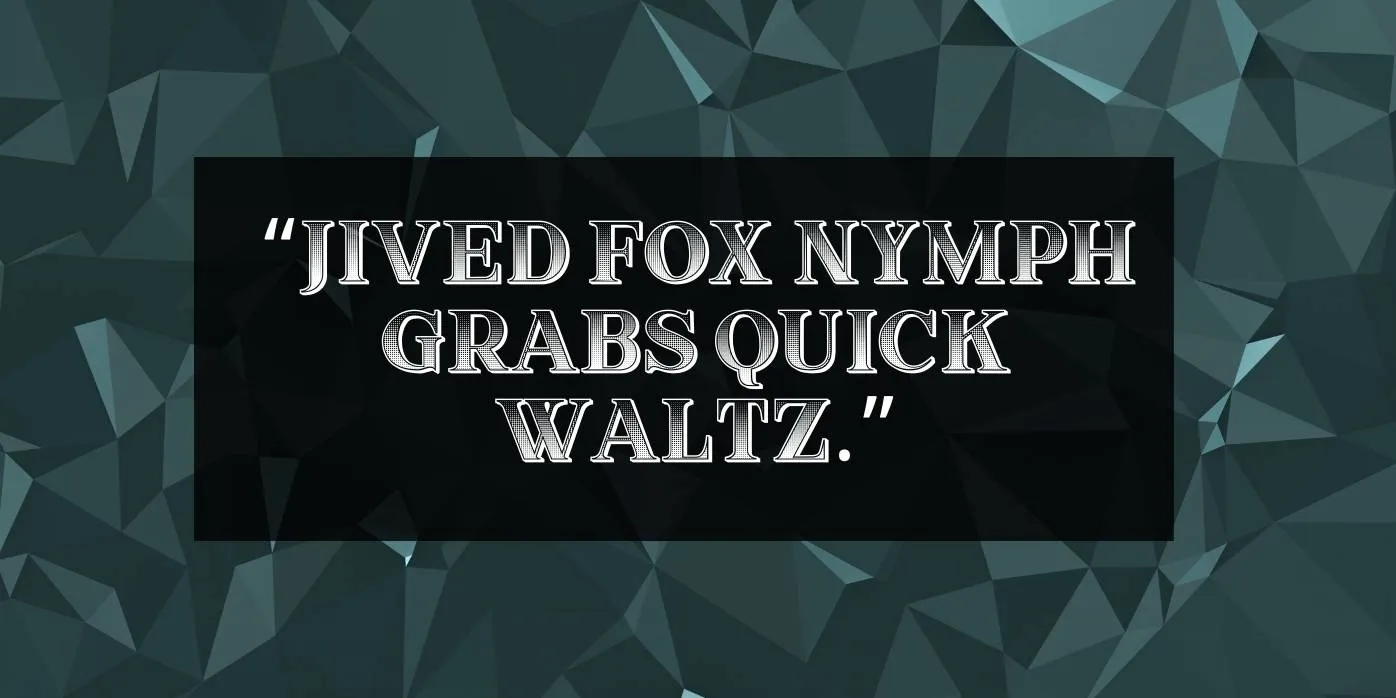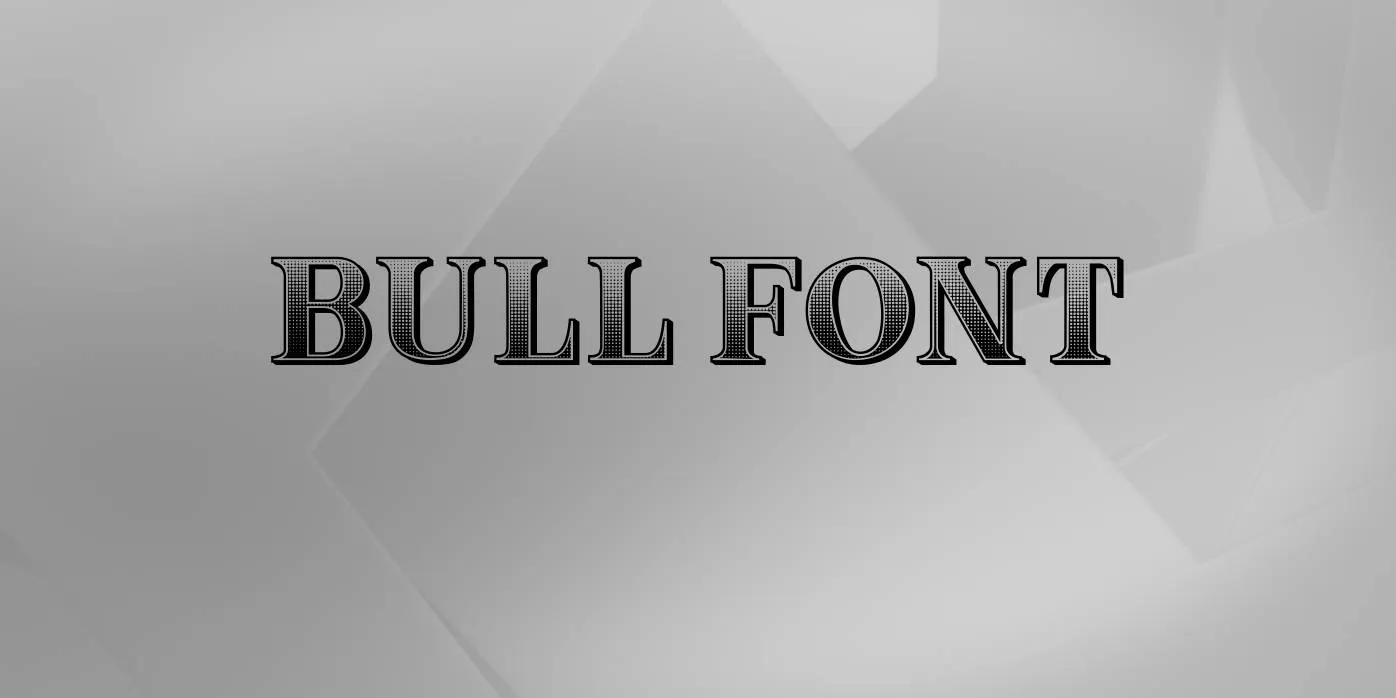
Bull Font
Today we are consulting on a very classic font family that is known by the name Bull Font. This awesome typeface was designed by Eddy mumbles. This classy typeface belongs to the fancy font family. It is well famed for CSS and SVG.
The Bull Font is a very old-school font that has been around for centuries. It was first used in the early days of printing, and it has been used by some of the most famous printers in history. This awesome font is a very classic, traditional font that has a lot of character. It is often used for invitations and other formal documents.